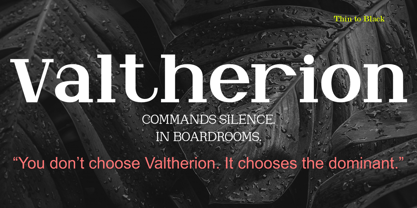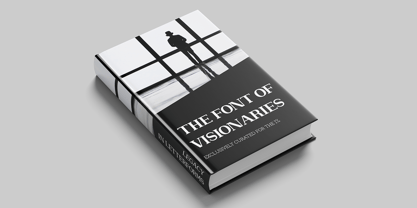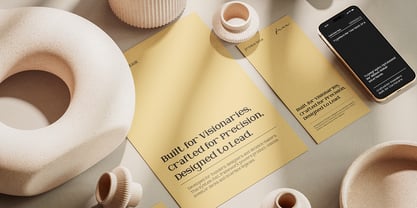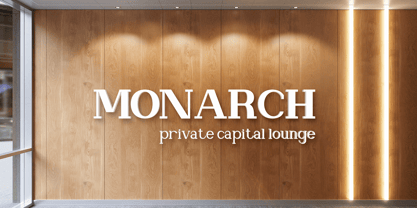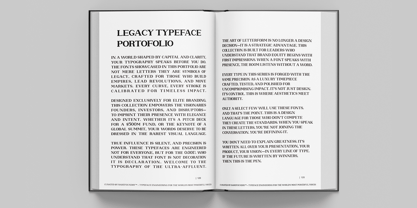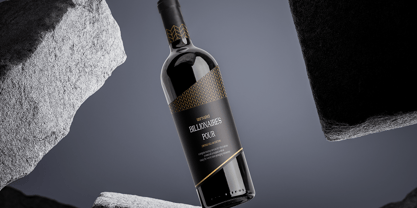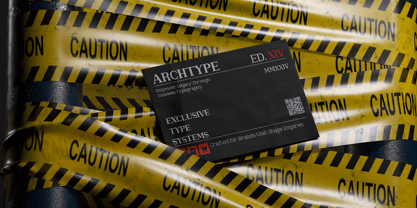
Valtherion
by Zaki Creative
VALTHERION
YOU WEREN’T MEANT TO FIND THIS. VALTHERION ISN’T A FONT.
IT’S A CODE. A SYMBOL ONLY THE DOMINANT RECOGNIZE.
CARVED IN SILENCE, SHARPENED BY GREED, VALTHERION IS BUILT TO SPEAK WHERE OTHERS WHISPER.
A TYPOGRAPHIC SIGNATURE DESIGNED FOR THOSE WHO DON’T JUST PLAY THE GAME—THEY OWN THE BOARD.
THE RULES OF ACQUISITION:
ONLY THREE PEOPLE ON EARTH WILL HOLD THIS FONT.
UPON FINAL PURCHASE, VALTHERION WILL BE DESTROYED PUBLICLY.
ALL FILES WIPED. NO BACKUPS. NO CLONES. NO SURVIVORS.
EACH LICENSED OWNER WILL BE KNOWN, BY NAME, BY LEGEND.
THE VALUE IS NOT IN WHAT IT DOES.
IT'S IN WHAT IT DENIES OTHERS FOREVER.
OWNING VALTHERION IS AN ECONOMIC POWER MOVE.
IT IS NOT INFLATIONARY.
IT DOES NOT SCALE.
IT IS AN ASSET WITH ZERO REPLICATION.
IF YOU HESITATE, YOU'RE NOT THE ONE.
VALTHERION IS NOT FOR DESIGNERS.
IT IS FOR THE FEW WHO NEED THE WORLD TO SHUT UP
WHEN THEIR NAME IS PRINTED.